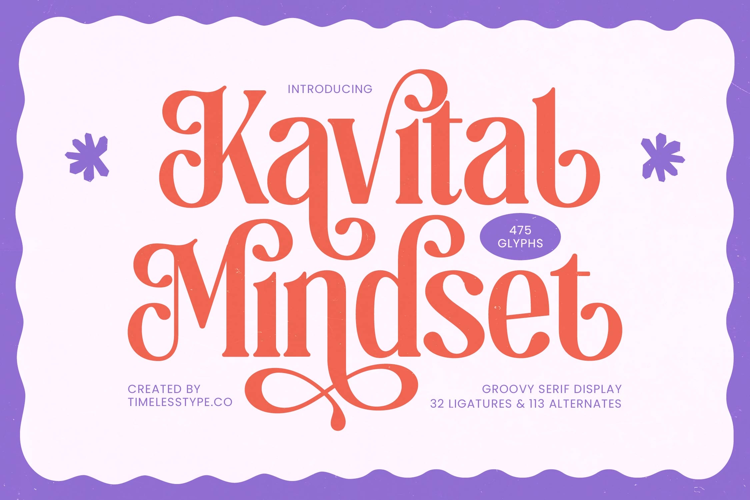
Kavital Mindset - Groovy Serif Display
Kavital Mindset
Kavital Mindset Italic
Kavital Mindset - Groovy Serif Display is a captivating display font defined by its exaggerated, flowing curves and dramatic high-contrast thick-and-thin strokes. This design choice ensures maximum visual impact, commanding attention whether used in large headlines or elegant logotypes. It masterfully blends the nostalgic aesthetics of 1970s typography with contemporary typographic precision, making it instantly recognizable and highly memorable.